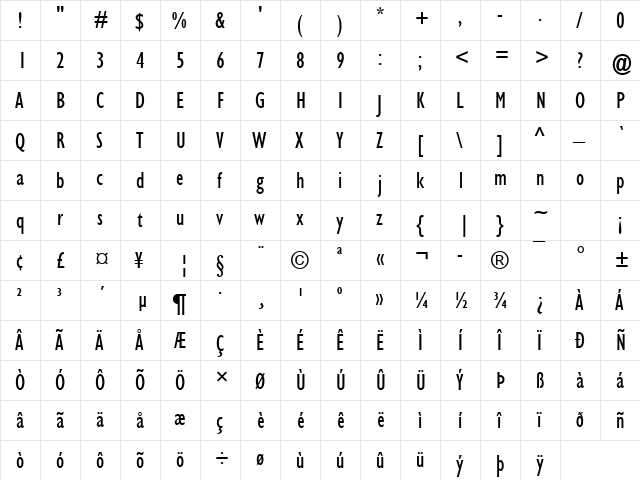
Gill Sans MT Condensed Regular
| Foundry | Monotype Typography |
| Designer | Eric Gill |
Design Context for Gill Sans MT Condensed Typeface
Gill Sans MT Condensed takes a measured approach to typography — its balanced proportions and neutral character make it a reliable workhorse for both digital and print work. The condensed width makes it efficient for tight spaces without sacrificing legibility.